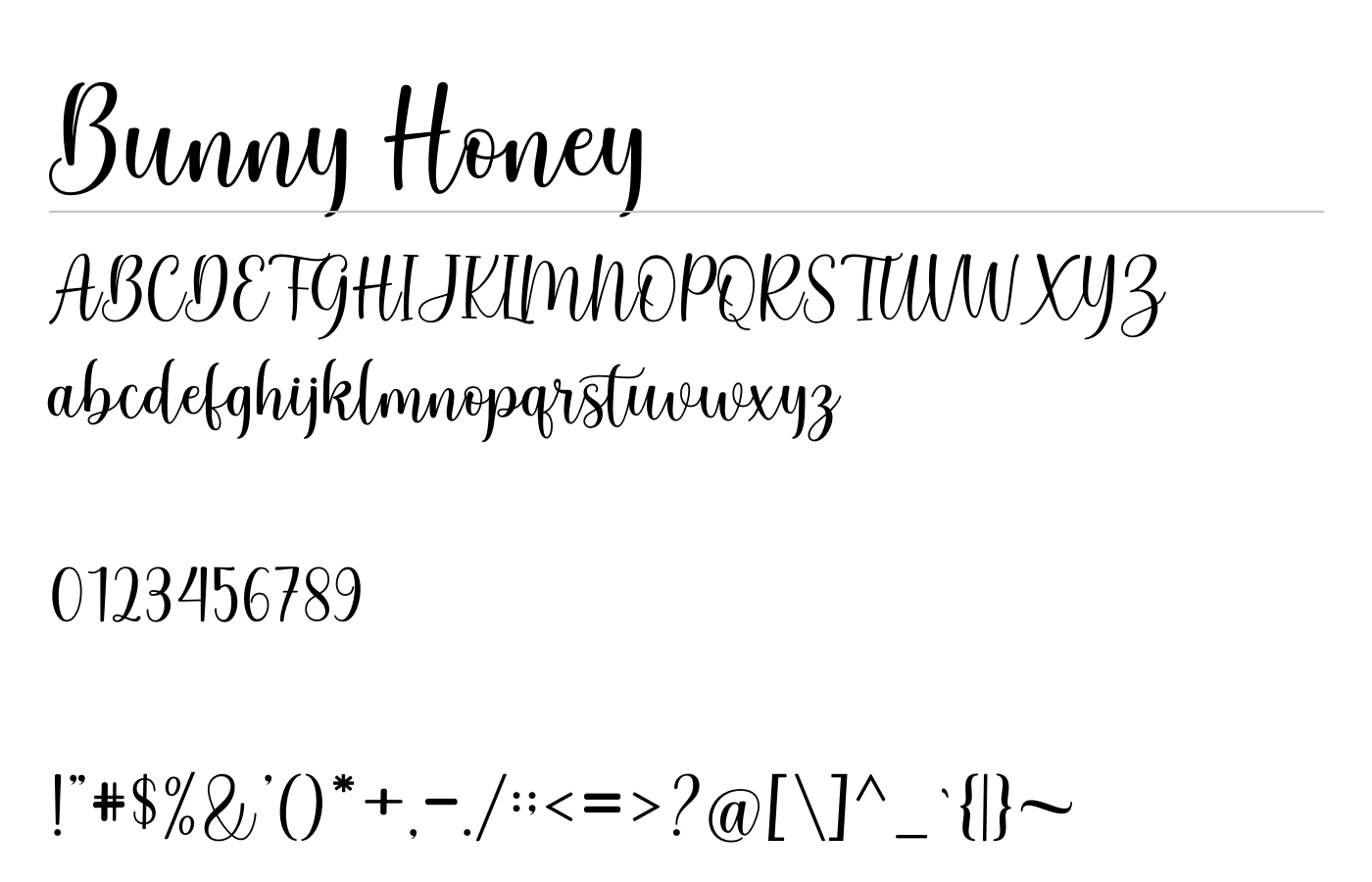
Bunny Honey is a playful and elegant script font with a light, flowing style that feels both modern and charming. Its smooth, rounded strokes and lively character shapes make it ideal for invitations, branding, and creative projects seeking a friendly yet sophisticated touch. This font works best in headlines and logos where a personal, handwritten feel can shine.
Bunny Honey Font
About Bunny Honey Font
| Font family | Bunny Honey Font |